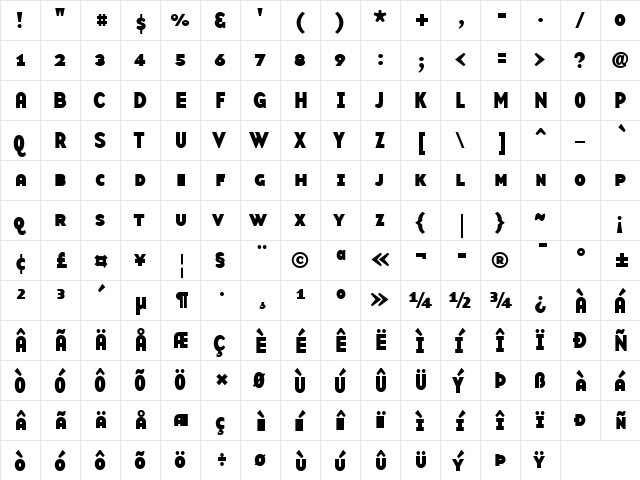
BaseTwSansSmallCaps Bold
Design Context for BaseTwSansSmallCaps Typeface
BaseTwSansSmallCaps takes a measured approach to typography — its balanced proportions and neutral character make it a reliable workhorse for both digital and print work. The heavy weight commands attention and anchors typographic hierarchies.